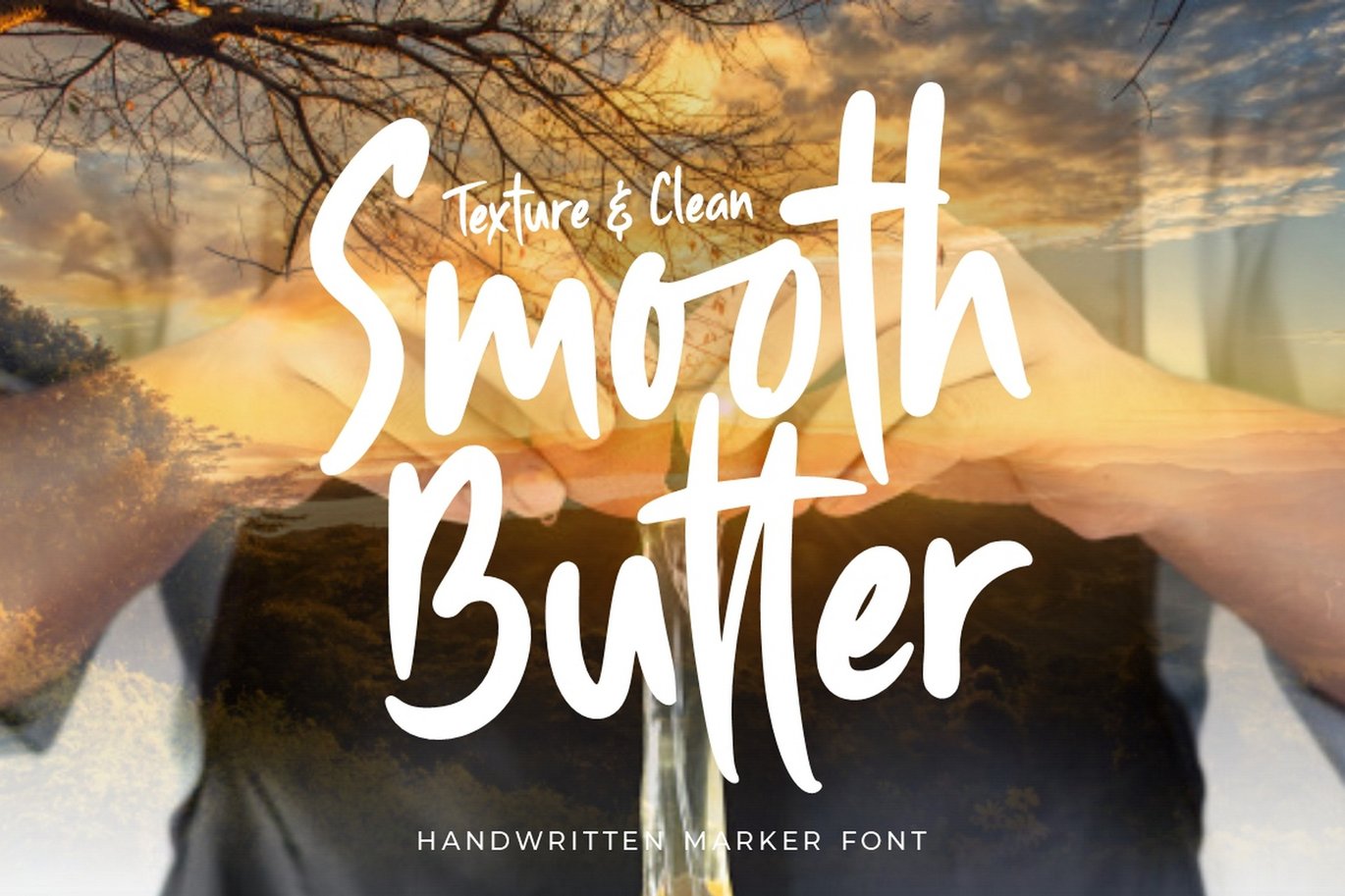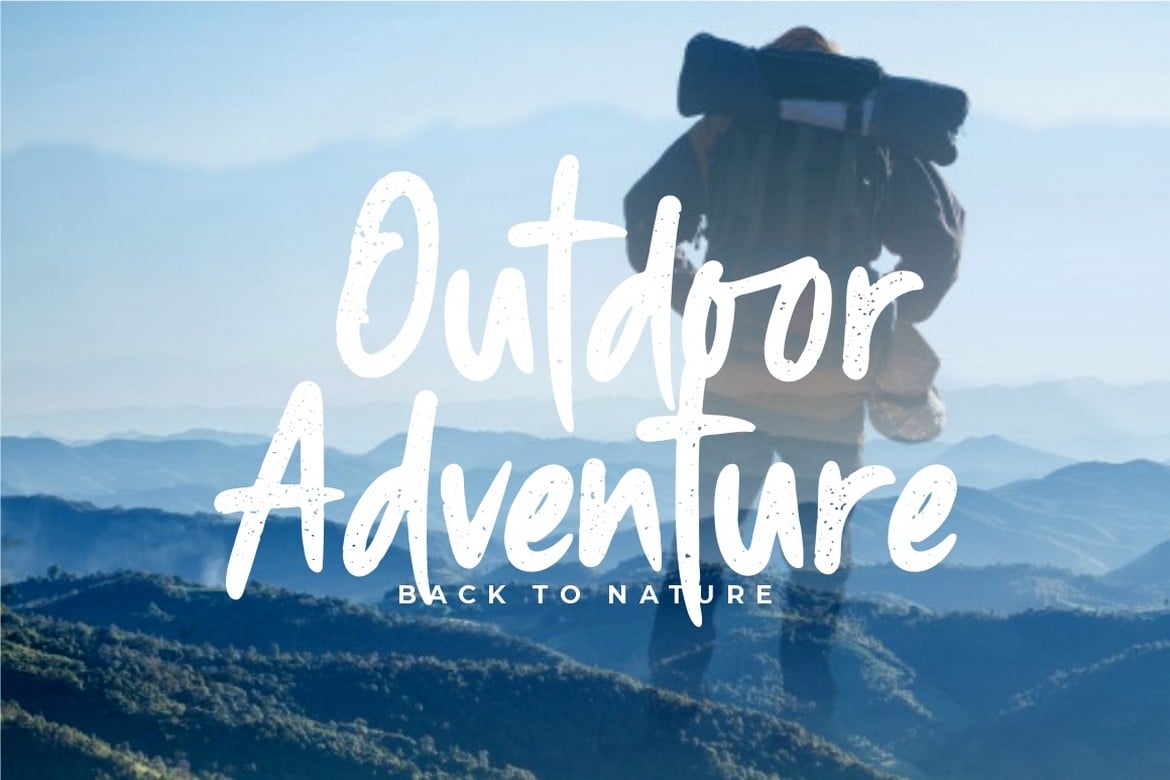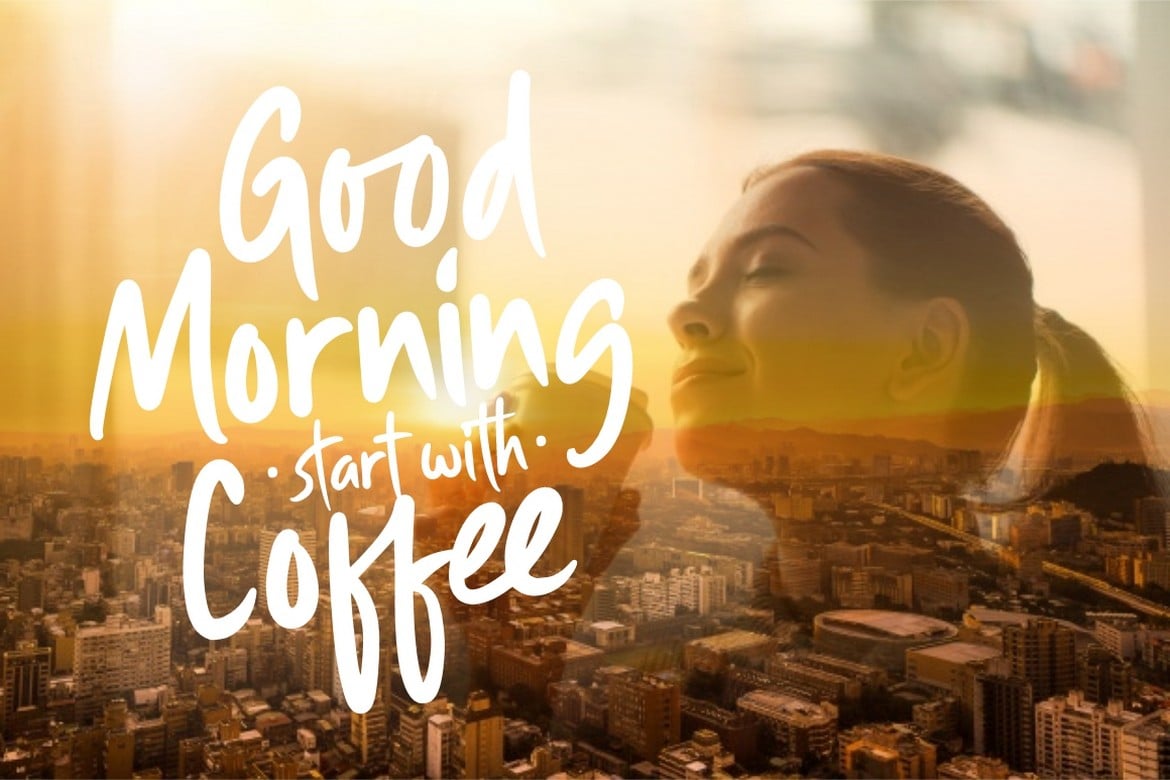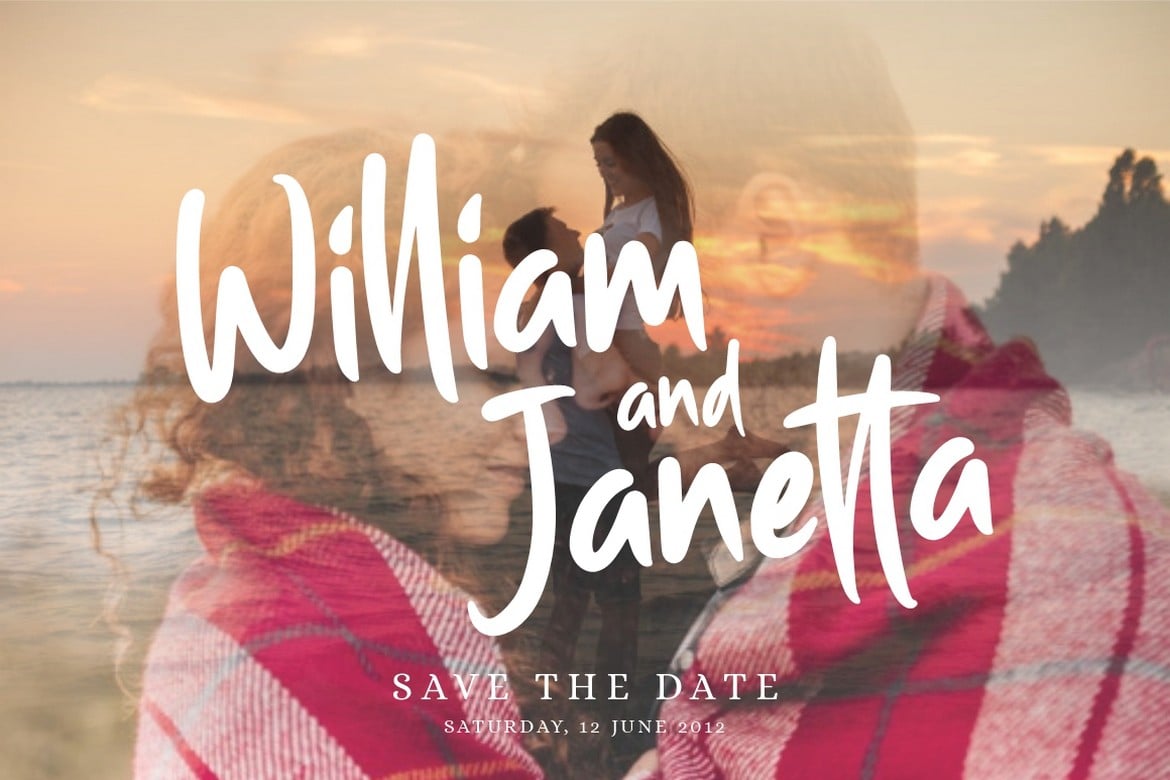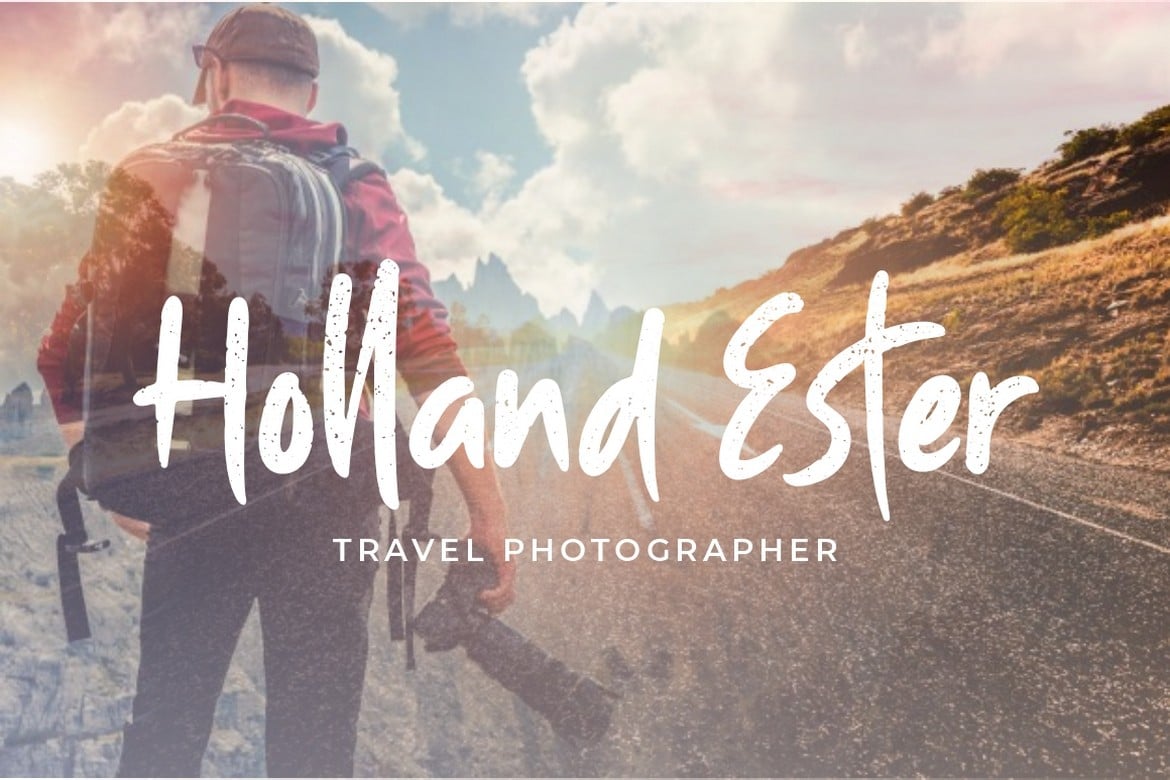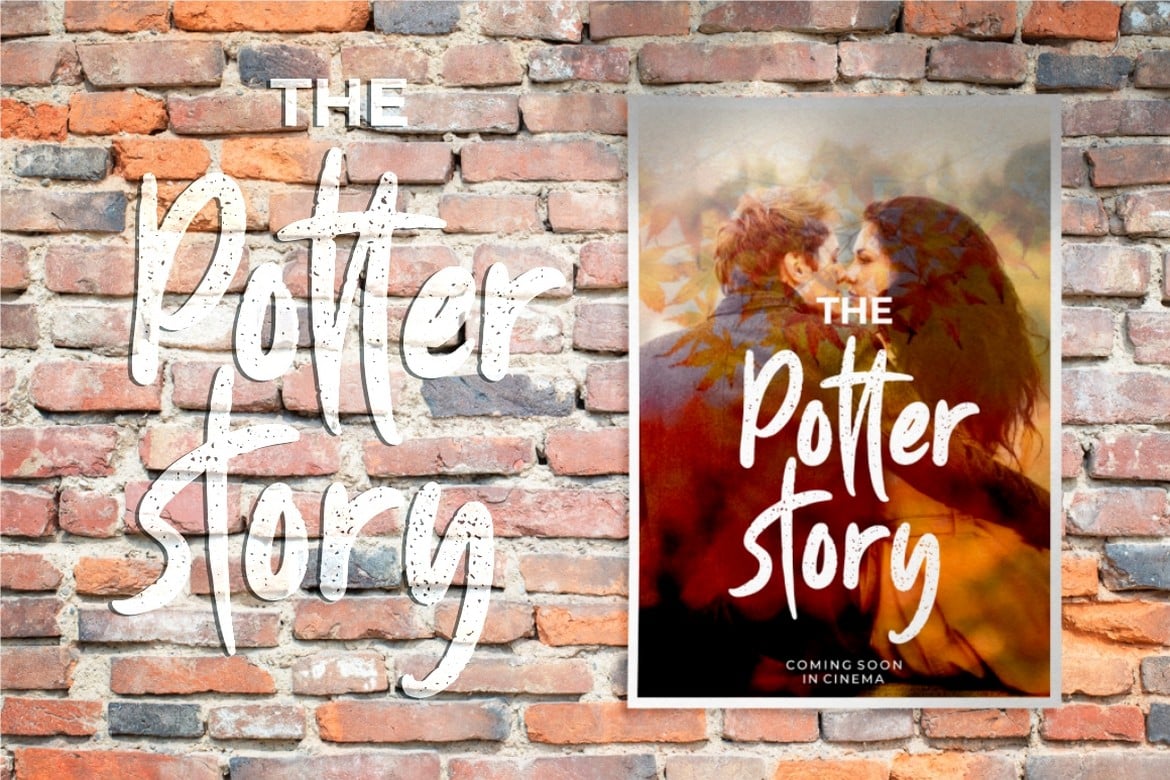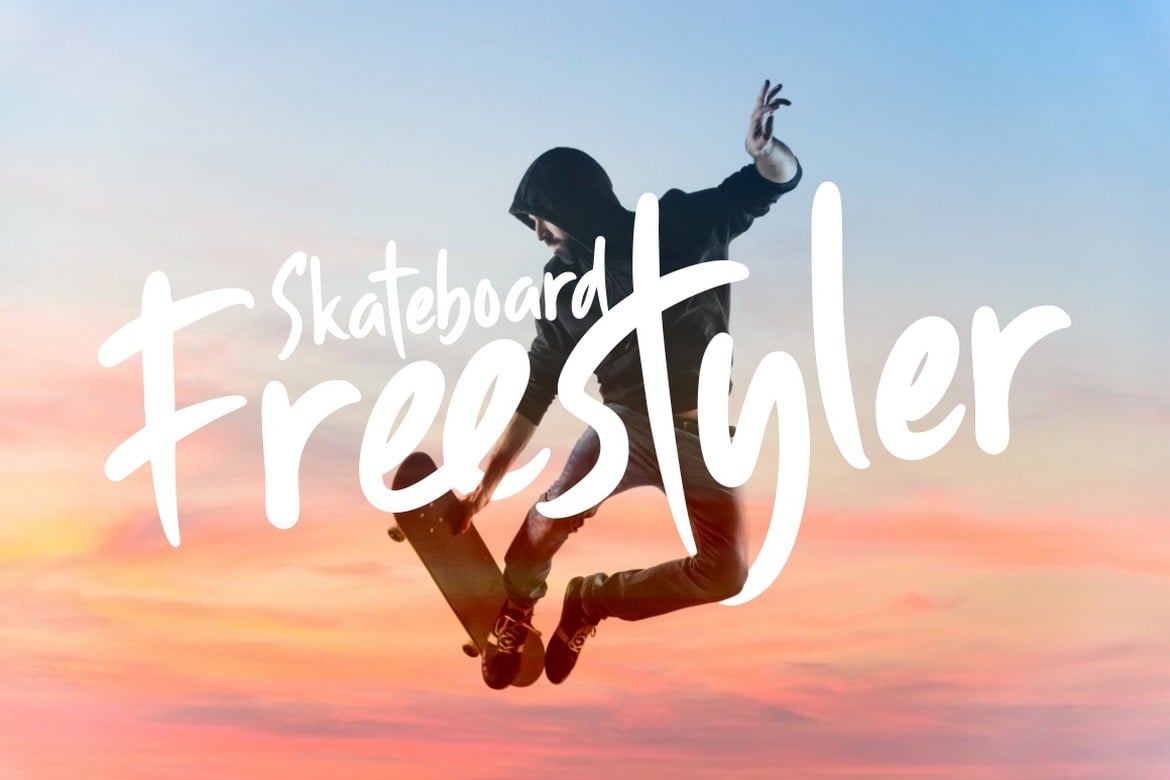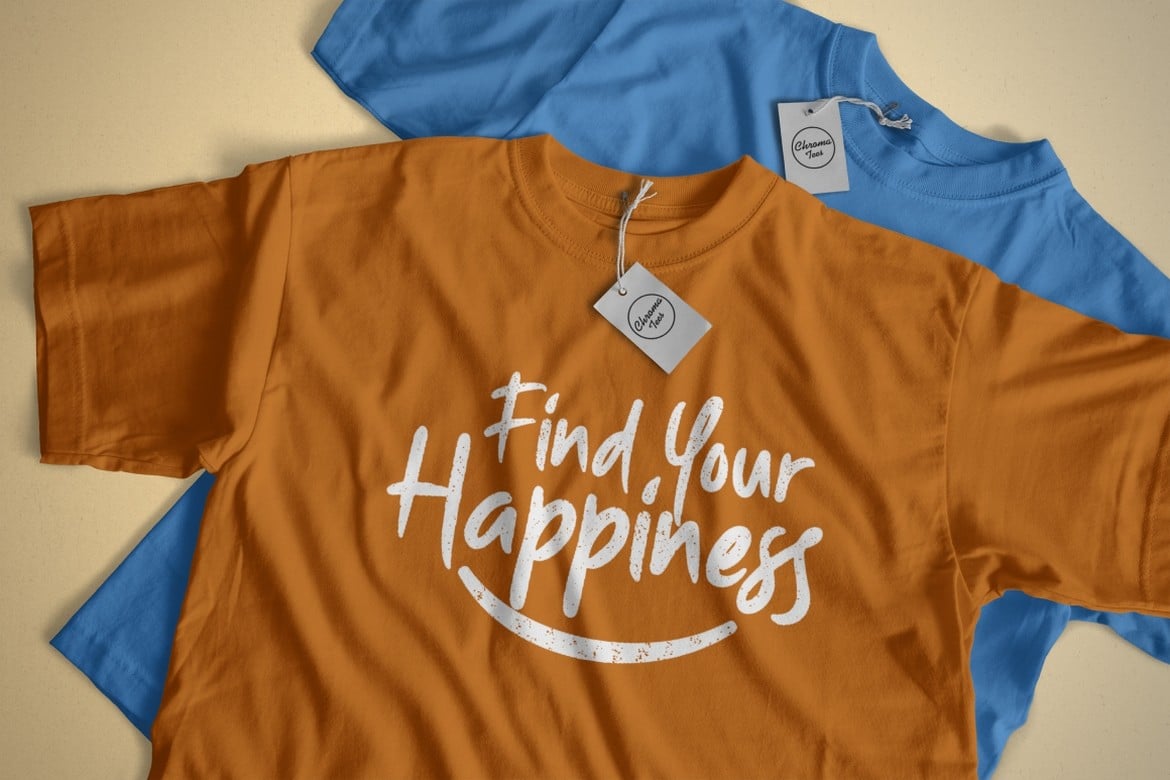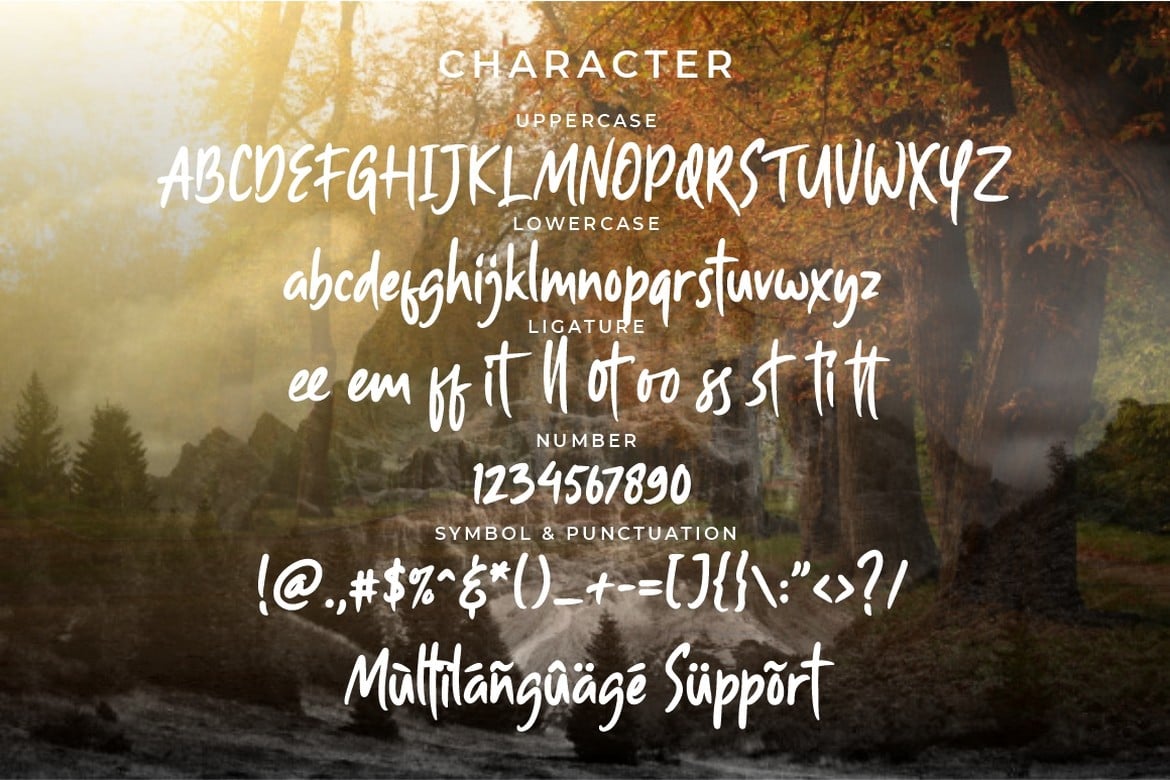
Smooth Butter – Handwritter Marker Font
** Smooth Butter **
Smooth Butter is a stylish and casual handwritten marker font. Made by writing on paper first and then scanning. Then spruce up each character so that they blend into a very natural font. Like original handwriting.
I made two versions, clean and textured version.
Smooth Butter is perfect for logo, quote, stationery, wedding designs, social media posts, advertisements, product packaging, product designs, label, photography, watermark, special events or anything.
- Number, Punctuation And Symbols
- Multilanguage Support.